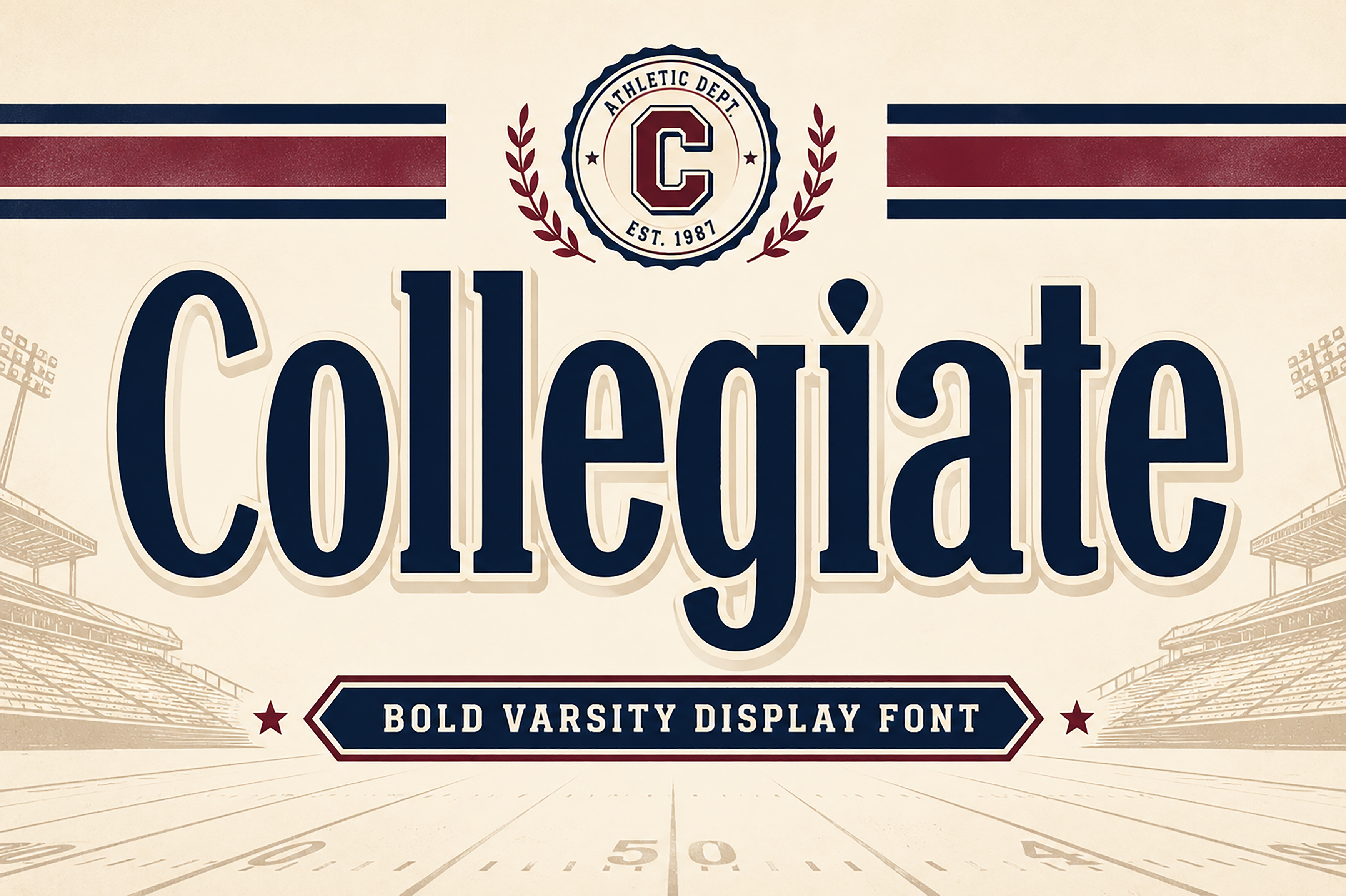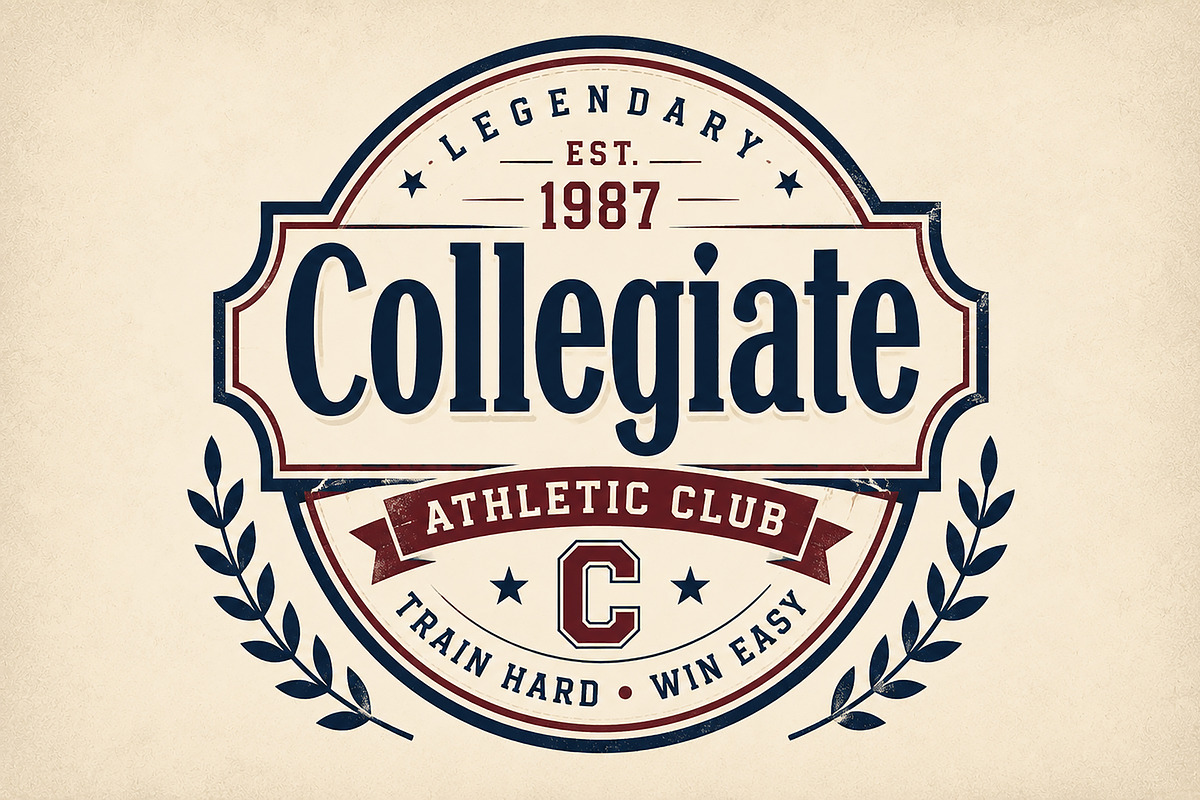
Collegiate – Bold Varsity Font
Collegiate – Bold Varsity Display Font
Short Description
Collegiate is a bold varsity display font inspired by classic American college sports typography. Perfect for logos, athletic branding, jerseys, apparel, badges, posters, school merchandise, and vintage sports-inspired designs. Strong, timeless, and built to make your headlines stand out
Description
Bring timeless varsity spirit to your designs with Collegiate, a bold display font inspired by classic American college athletics, vintage university branding, and retro sports typography. Its strong letterforms, confident presence, and clean vintage character make it the perfect choice for projects that demand a bold and authentic collegiate look.
Whether you're creating sports logos, team jerseys, university merchandise, apparel graphics, or eye-catching posters, Collegiate delivers a powerful visual impact while maintaining excellent readability.
Designed with versatility in mind, this typeface works beautifully across both print and digital projects, making it an excellent addition to any designer's font library.
College & University Branding
Varsity Logos
Sports Team Identity
Athletic Apparel
T-Shirt Designs
Jerseys & Uniforms
Vintage Badges
Emblems & Crests
School Merchandise
Posters & Flyers
Stickers
Packaging
Headlines
Signage
Branding Projects
Bold Display Typeface
Classic Collegiate Style
Uppercase & Lowercase Letters